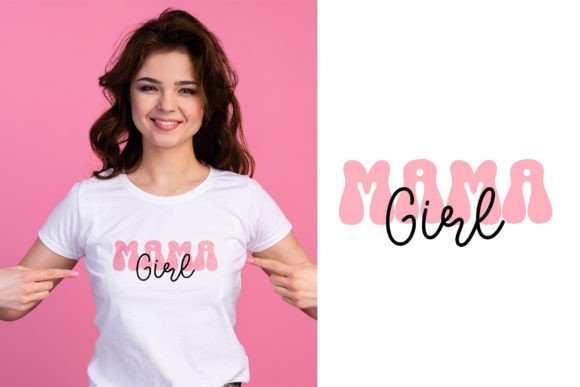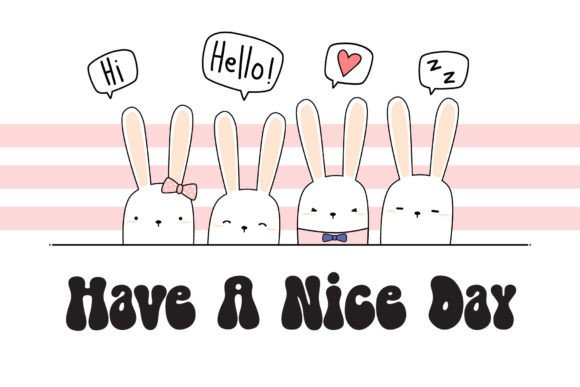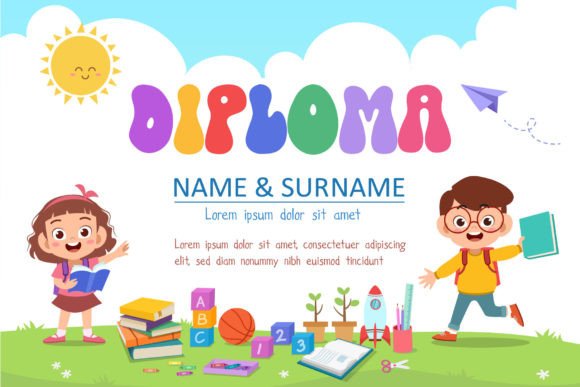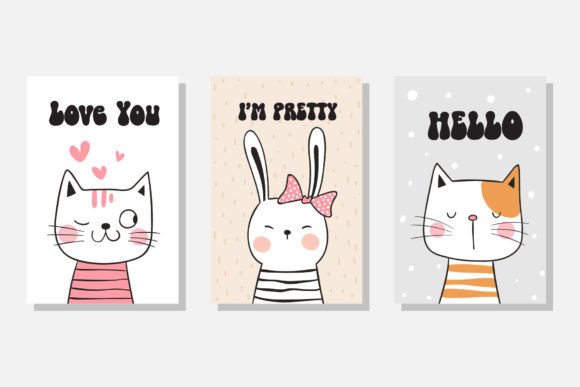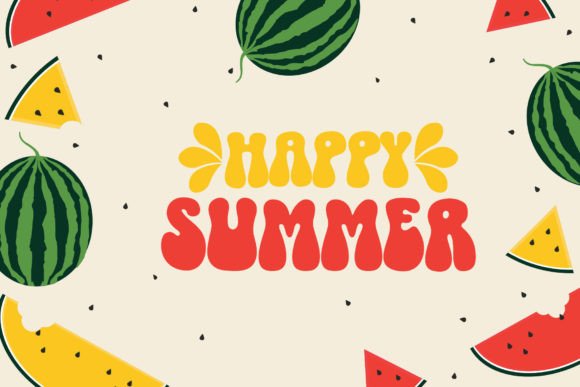
Cutesy Font: The Ultimate Display Font for Creative Projects
Are you tired of using the same old fonts for your creative projects? Look no further than Cutesy Font, a beautiful, cute, and naughty display font that’s perfect for making your designs stand out. In this article, we’ll explore the features and benefits of Cutesy Font, and show you how to incorporate it into your next project.
What is Cutesy Font?
Cutesy Font is a display font that’s designed to add a touch of whimsy and playfulness to your designs. With its unique and quirky style, it’s perfect for projects that require a bit of personality and flair. Whether you’re working on a logo, brochure, or social media graphics, Cutesy Font is sure to make your design pop.
Key Features of Cutesy Font
- Beautiful and Cute: Cutesy Font is designed to be visually appealing, with a sweet and charming style that’s sure to capture attention.
- Naughty and Playful: With its quirky and irregular shapes, Cutesy Font adds a touch of playfulness to your designs, making them more engaging and fun.
- Versatile: Cutesy Font is suitable for a wide range of projects, from logos and branding to social media graphics and craft projects.
- Easily Matchable: Cutesy Font can be paired with a variety of other fonts and design elements, making it easy to incorporate into your existing design workflow.
Benefits of Using Cutesy Font
So why choose Cutesy Font for your next project? Here are just a few benefits of using this versatile display font:
- Adds Personality: Cutesy Font adds a unique and playful touch to your designs, helping them to stand out from the crowd.
- Increases Engagement: The fun and quirky style of Cutesy Font is sure to capture attention and engage your audience.
- Versatile: Cutesy Font can be used for a wide range of projects, from digital designs to print materials.
How to Use Cutesy Font in Your Designs
Ready to get started with Cutesy Font? Here are a few tips for incorporating it into your designs:
- Use it as a Title Font: Cutesy Font is perfect for use as a title font, adding a touch of personality and flair to your headings and titles.
- Pair it with Other Fonts: Experiment with pairing Cutesy Font with other fonts and design elements to create a unique and visually appealing design.
- Use it for Craft Projects: Cutesy Font is perfect for use in craft projects, such as scrapbooking, card making, and DIY gifts.